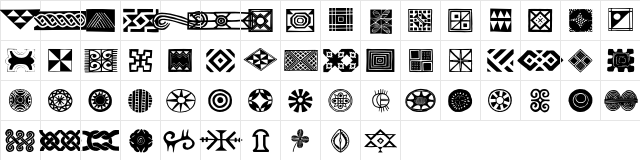
African Ornaments Regular Font Preview
African Ornaments Regular
Design Context for African Ornaments Typeface
African Ornaments brings ornamental detail and strong personality to headlines and identities, where visual impact matters more than quiet functionality.
Font Pairing: Pair with a clean neutral sans-serif for body copy to let African Ornaments's character lead without overwhelming the composition.
Pro Tip: Use African Ornaments exclusively at display sizes — it was designed to be seen, not read at length. Let a neutral companion handle body copy.